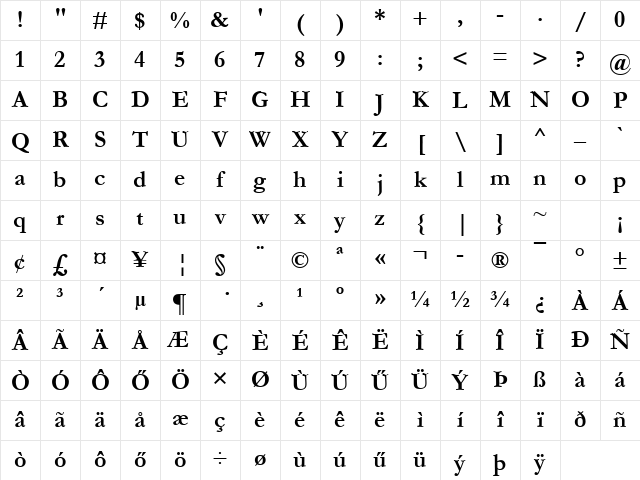
Garamond Hu Bold
Garamond Hu Family
Design Context for Garamond Hu
Garamond Hu is a composed and adaptable typeface that performs quietly and consistently across a wide range of design contexts. Its bold stroke weight gives it real presence on the page.